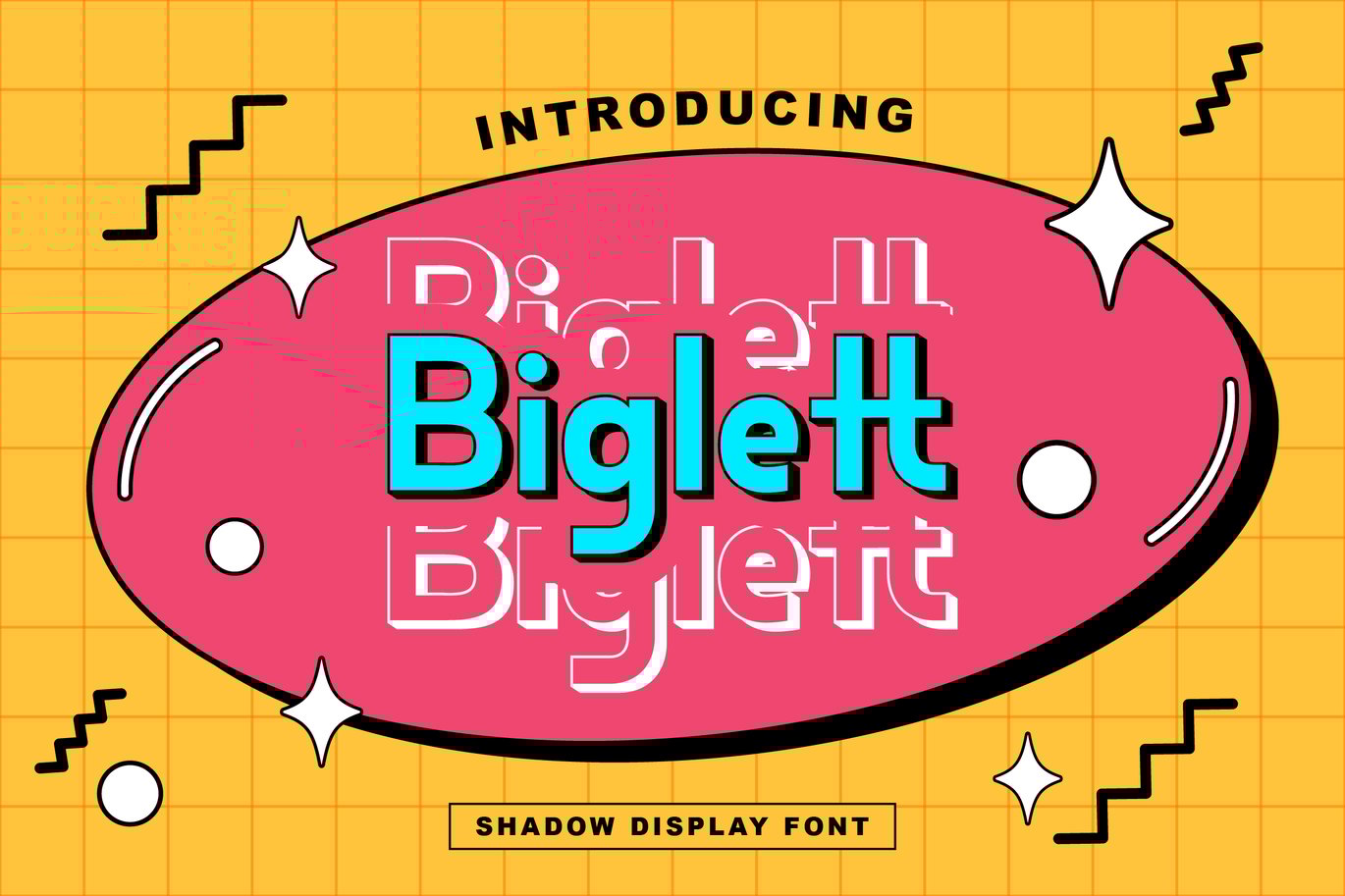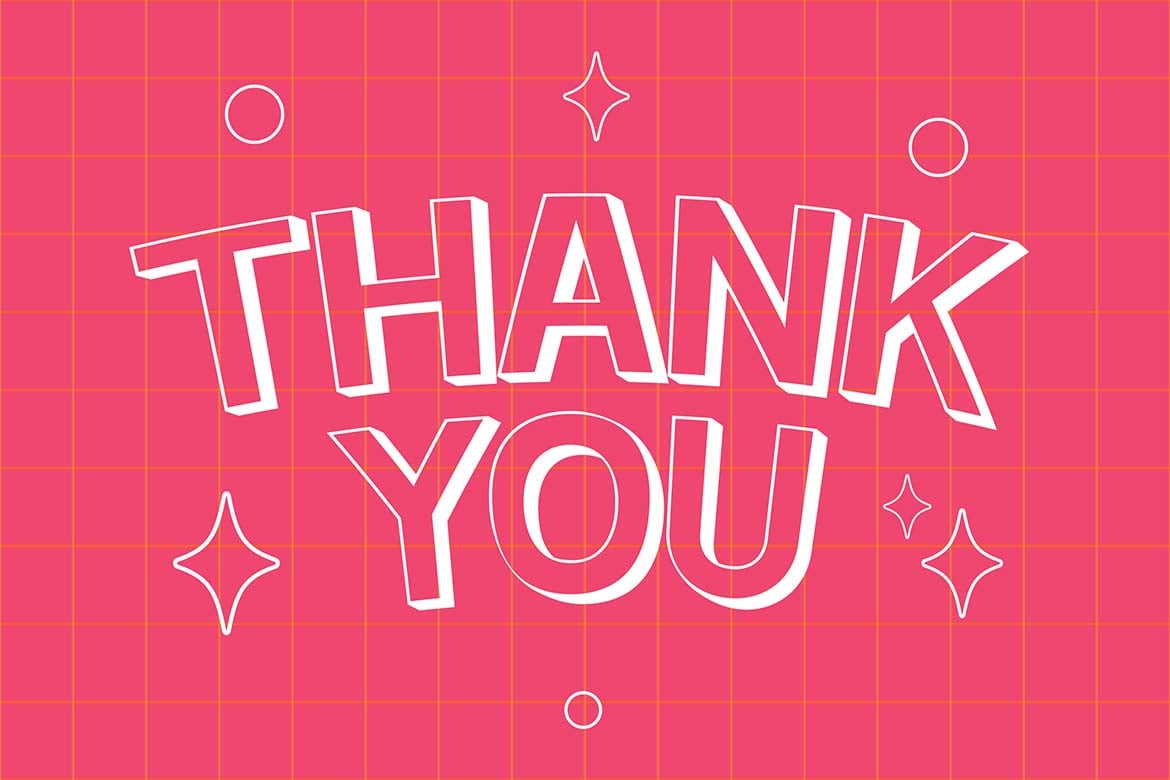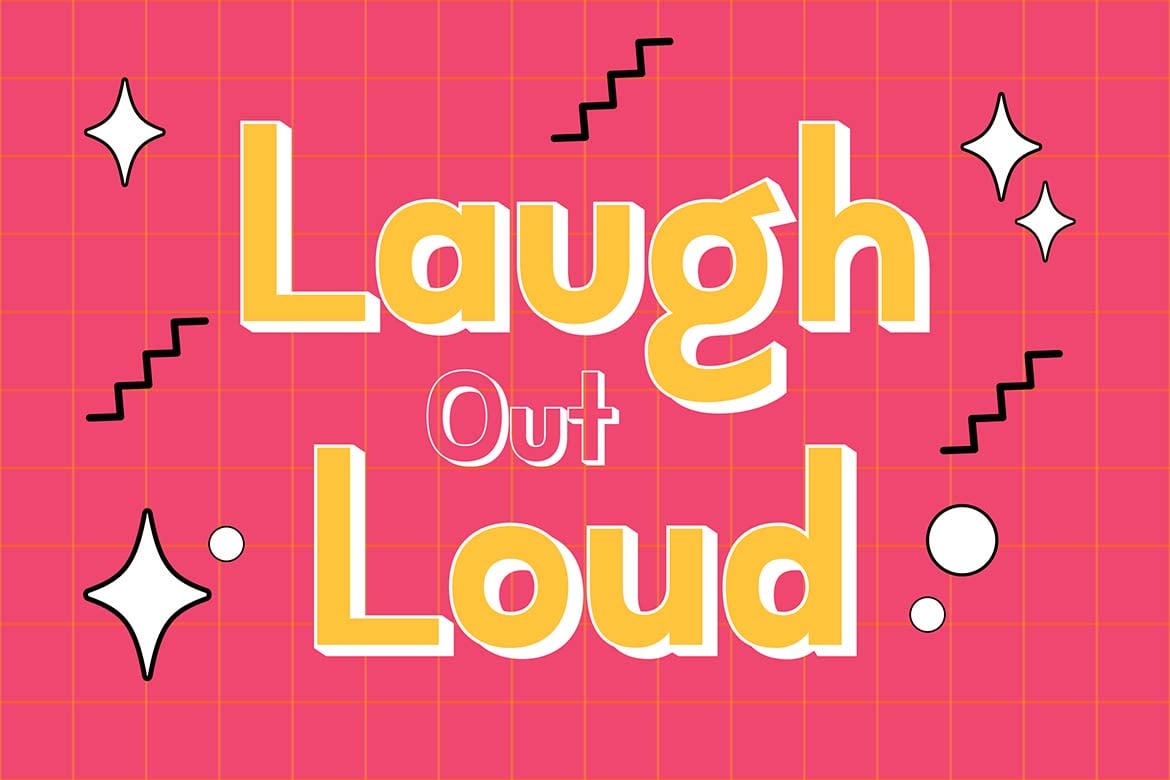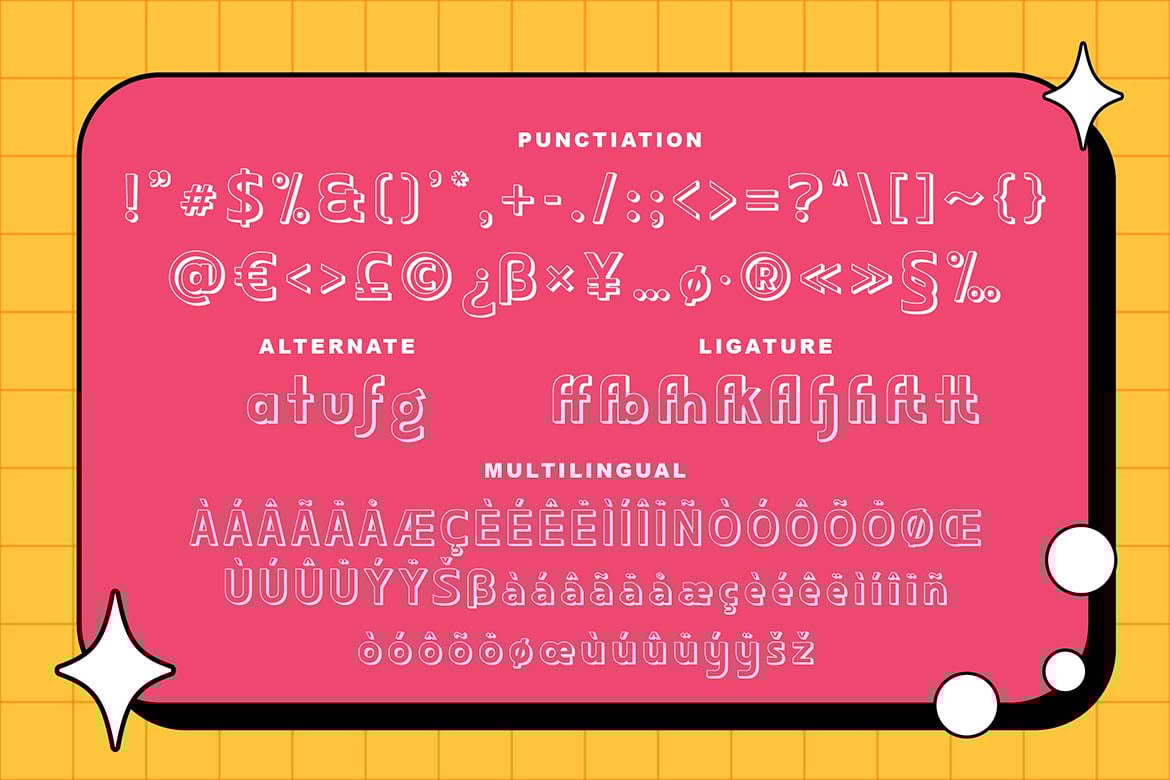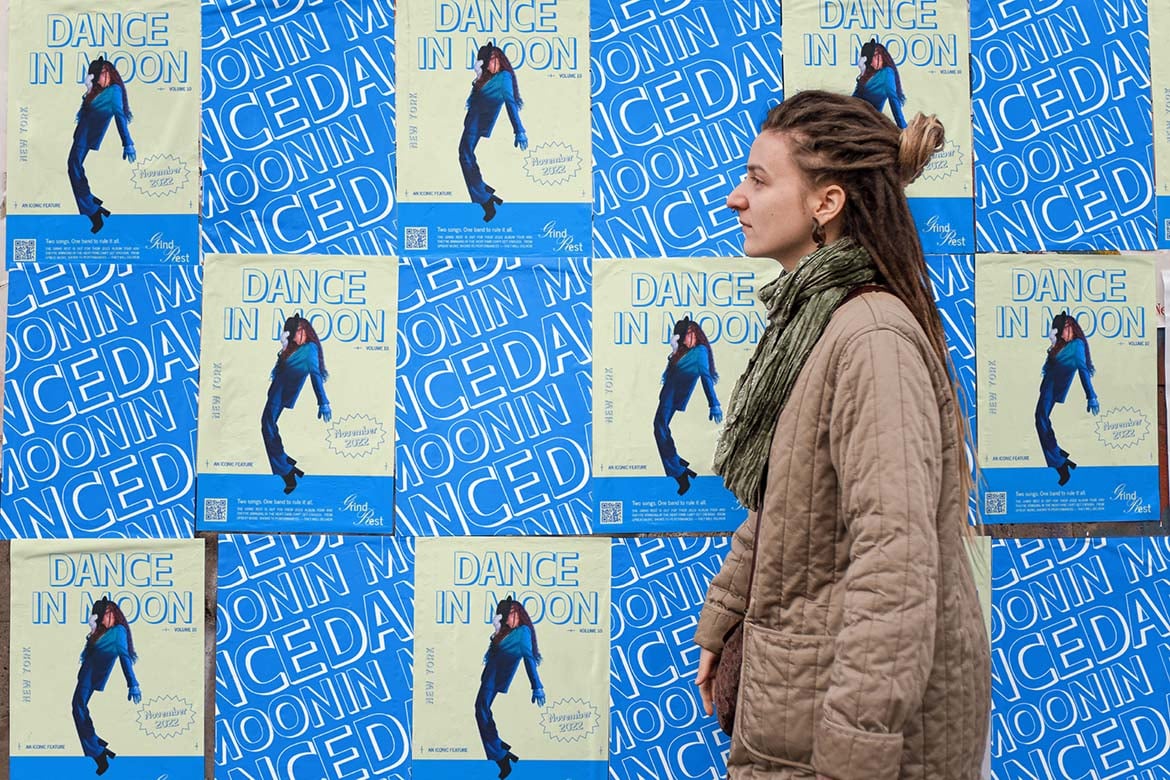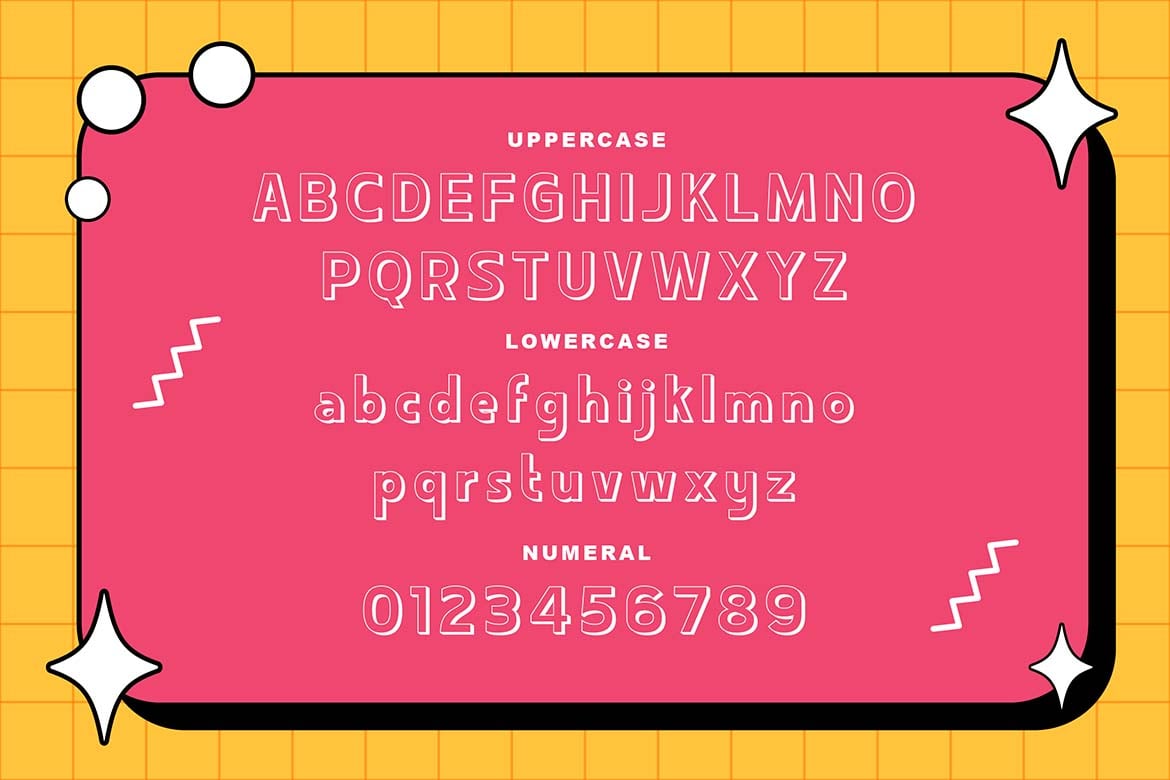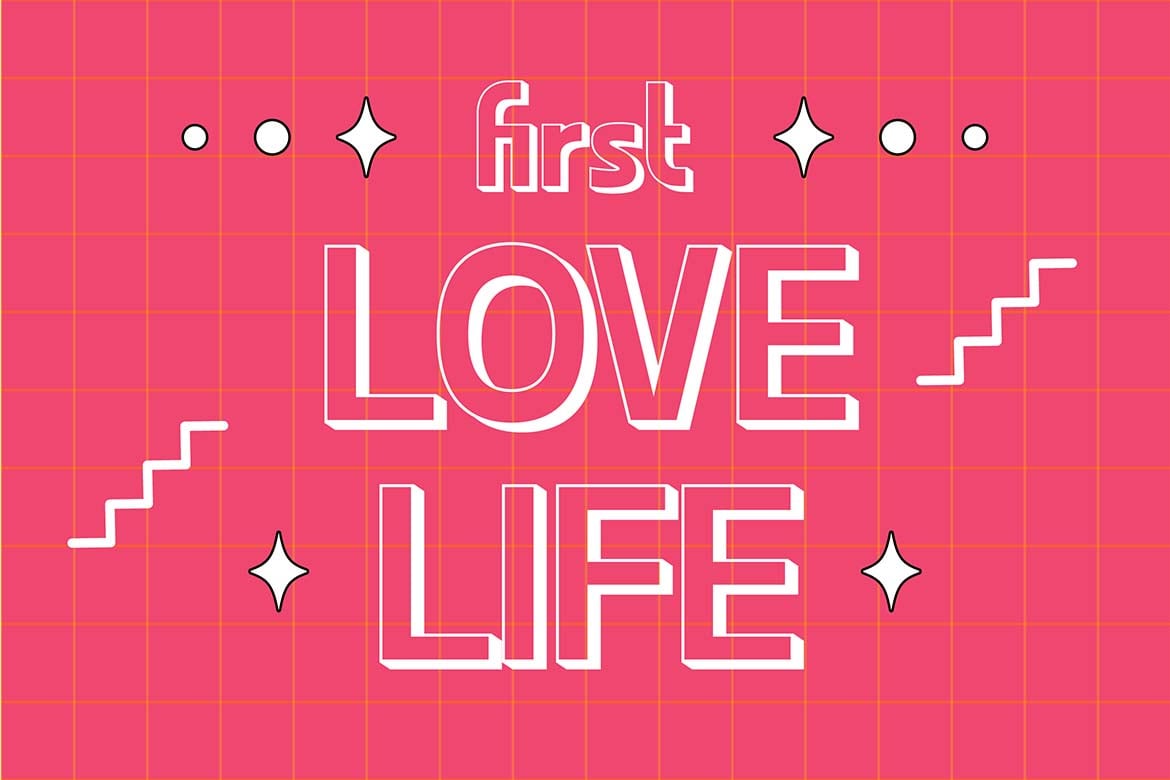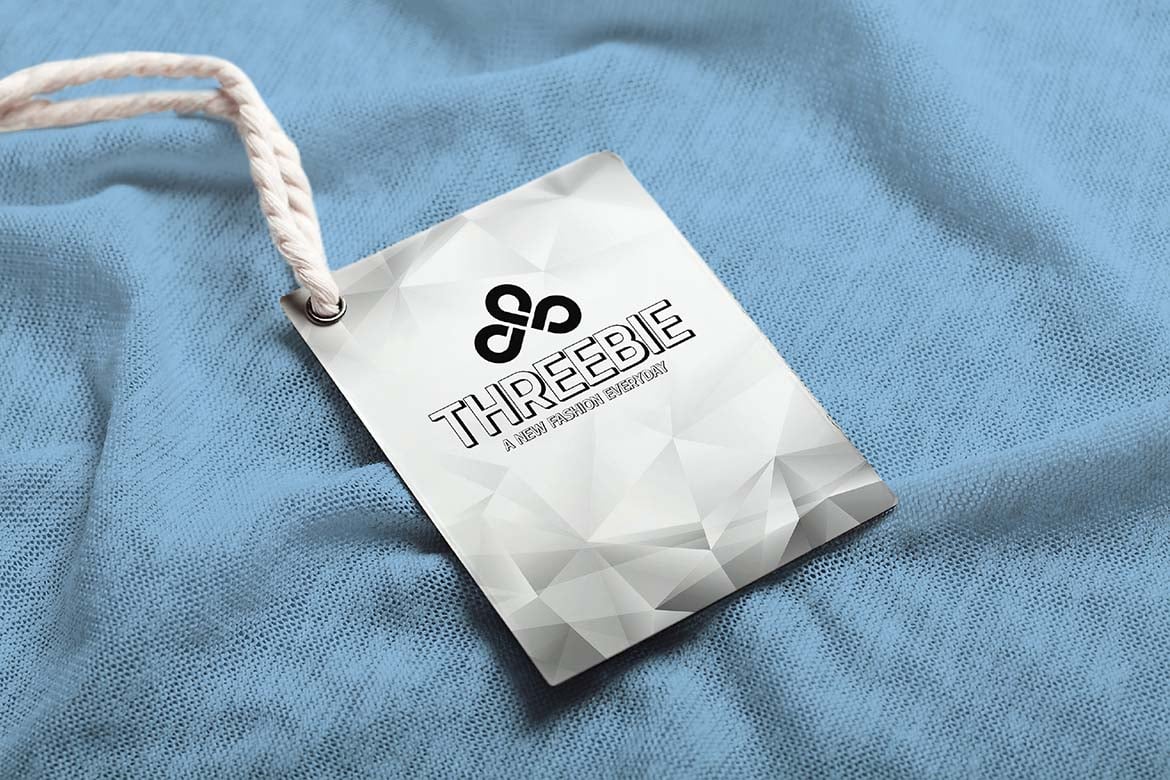
Biglett – Shadow Display Font
Biglett is a captivating shadow display font that adds depth and dimension to your designs. With its bold characters and dramatic shadow effects, Biglett is perfect for creating eye-catching headlines, posters, and logos that stand out. This typeface combines retro charm with modern flair, making it ideal for projects that need a touch of vintage elegance or contemporary boldness. Whether used in digital or print media, Biglett ensures your text makes a lasting impression.